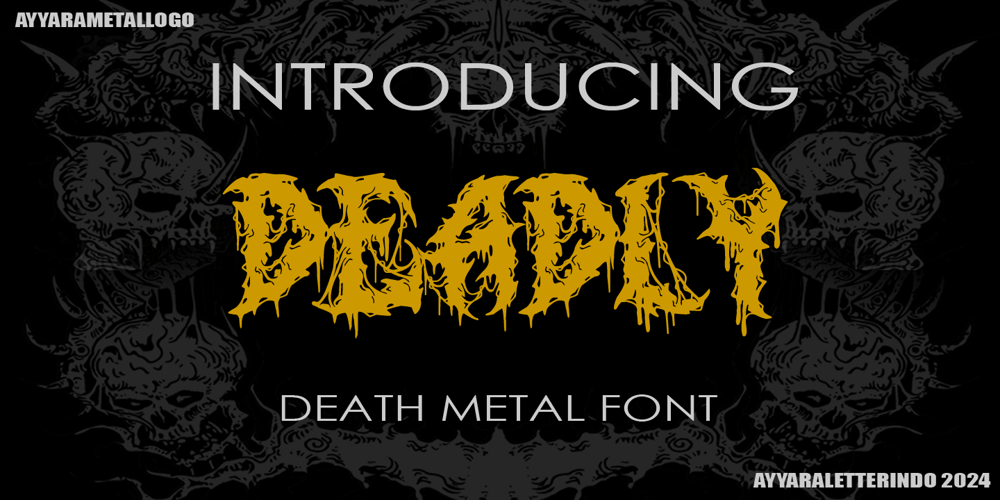
Deadly Font Family was designed by published by Ayyara Letterindo. Deadly contains 1 styles and family package options. Deadly is a death metal – Horror font that you can be used for band logos, horror poster, Clothing design, flyer or poster promotion for your amazing product, you can immediately make your own projects with the help of this unique font.You can also combine it with dark or any death metal ornaments to make your design is amazing with ease.